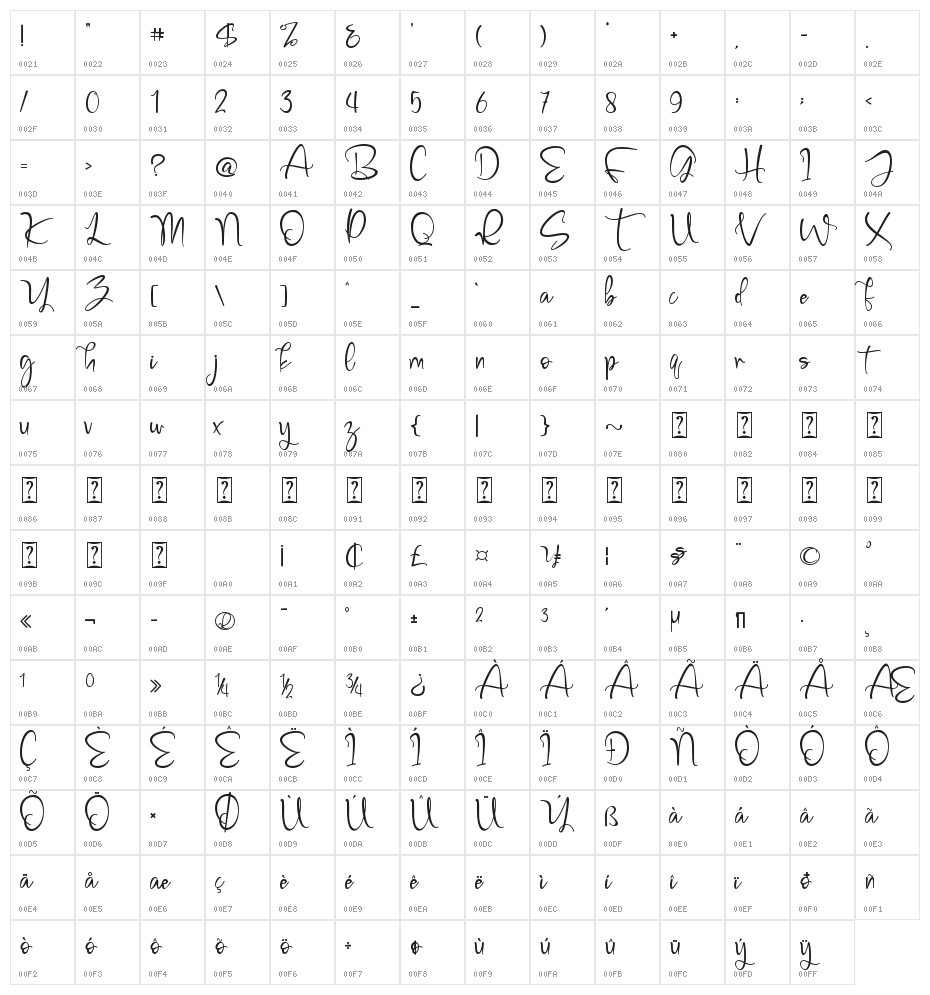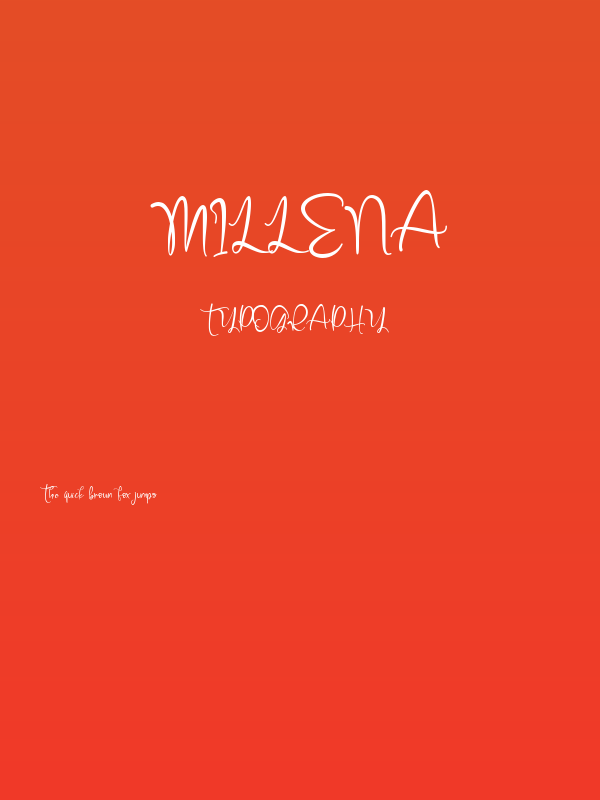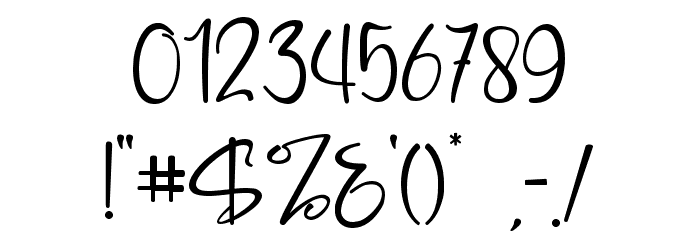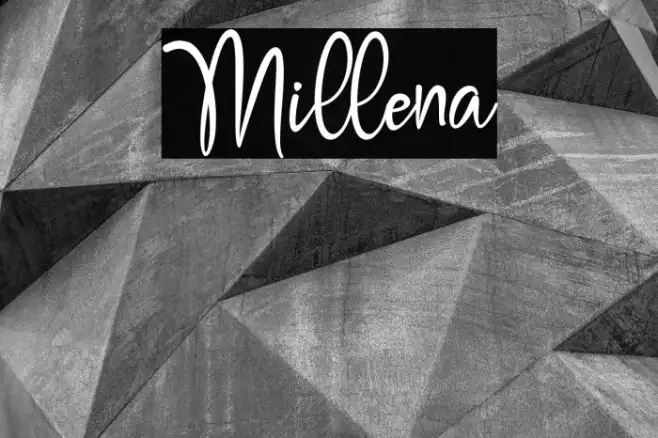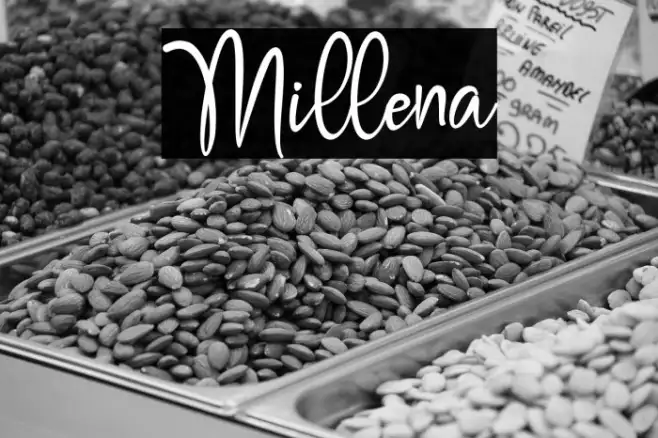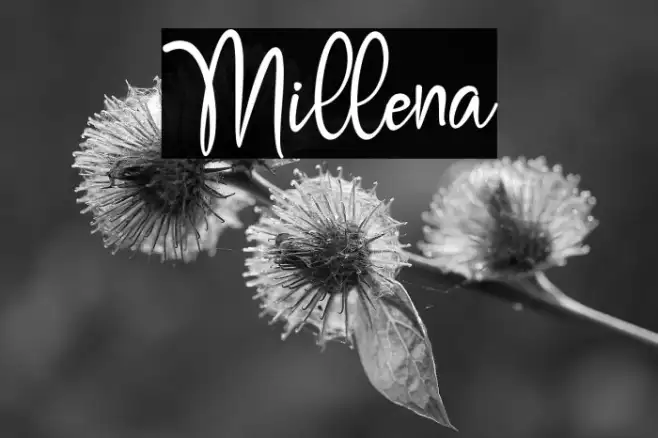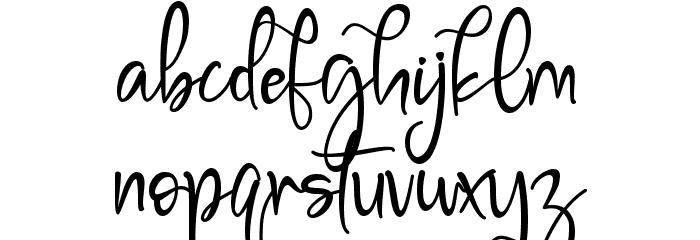
Millena Font
Millena Description
This font features a lively and flowing script style, characterized by its elegant and cursive letterforms. The uppercase letters exhibit a graceful, sweeping motion, while the lowercase letters maintain a consistent fluidity, enhancing the overall aesthetic. The numerals and special characters are designed to complement the script style, ensuring a cohesive look across all text. The font's playful yet sophisticated appearance makes it suitable for a variety of creative applications.